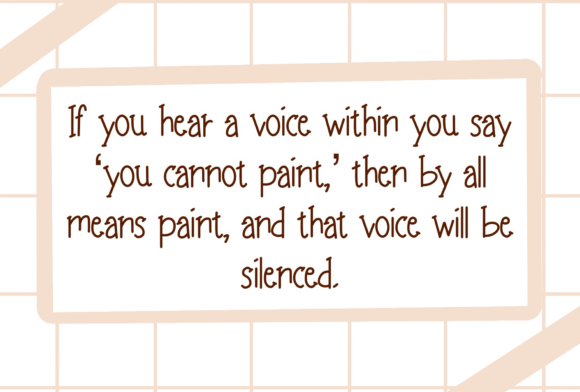
Thank You So Much Font: The Perfect Handwritten Font for Digital Note-Taking and Design
In the world of digital design, the right font can make all the difference. If you’re looking for a font that adds a personal touch to your digital notes, projects, and designs, look no further than the Thank You So Much font. This neat handwritten font is perfect for digital note-taking and works great for various projects, including Procreate, blog posts, logos, branding, digital planners, invitations, greeting cards, photo albums, decorations, and more.
Key Features of Thank You So Much Font
- Handwritten style: Thank You So Much font has a beautiful, handwritten style that adds a personal touch to any design.
- Neat and legible: The font is neat and legible, making it perfect for digital note-taking and reading.
- Versatile: The font works great for various projects, including Procreate, blog posts, logos, branding, digital planners, invitations, greeting cards, photo albums, decorations, and more.
- Multi-language support: Thank You So Much font supports multiple languages, making it a great choice for designers who work with international clients or want to create content for a global audience.
Use Cases for Thank You So Much Font
Digital Note-Taking
Thank You So Much font is perfect for digital note-taking on iPads and GoodNotes. The font’s neat and legible style makes it easy to read and write notes, and its handwritten style adds a personal touch to your notes.
Procreate and Digital Art
Thank You So Much font works great with Procreate and other digital art software. You can use the font to add text to your artwork, create custom brushes, or design unique graphics.
Blog Posts and Articles
Thank You So Much font is a great choice for blog posts and articles. The font’s readable style makes it easy for readers to understand your content, and its handwritten style adds a personal touch to your writing.
Logos and Branding
Thank You So Much font can be used to create unique logos and branding materials. The font’s handwritten style adds a personal touch to your brand, making it more relatable and memorable.
Digital Planners and Invitations
Thank You So Much font is perfect for digital planners, invitations, and greeting cards. The font’s neat and legible style makes it easy to read and write, and its handwritten style adds a personal touch to your designs.
Benefits of Using Thank You So Much Font
- Personal touch: Thank You So Much font adds a personal touch to any design, making it more relatable and memorable.
- Versatility: The font works great for various projects, making it a great addition to your font library.
- Easy to read: The font’s neat and legible style makes it easy to read and write.
- Multi-language support: Thank You So Much font supports multiple languages, making it a great choice for designers who work with international clients or want to create content for a global audience.
Tips and Tricks for Using Thank You So Much Font
- Experiment with font sizes: Try different font sizes to find the perfect size for your design.
- Pair with other fonts: Pair Thank You So Much font with other fonts to create a unique and interesting design.
- Use in combination with images: Use Thank You So Much font in combination with images to create a visually appealing design.
- Make it bold or italic: Use the font’s bold or italic styles to add emphasis to your text.
In conclusion, Thank You So Much font is a versatile and beautiful handwritten font that is perfect for digital note-taking and design. Its neat and legible style makes it easy to read and write, and its handwritten style adds a personal touch to any design. With its multi-language support and versatility, Thank You So Much font is a great addition to any font library.